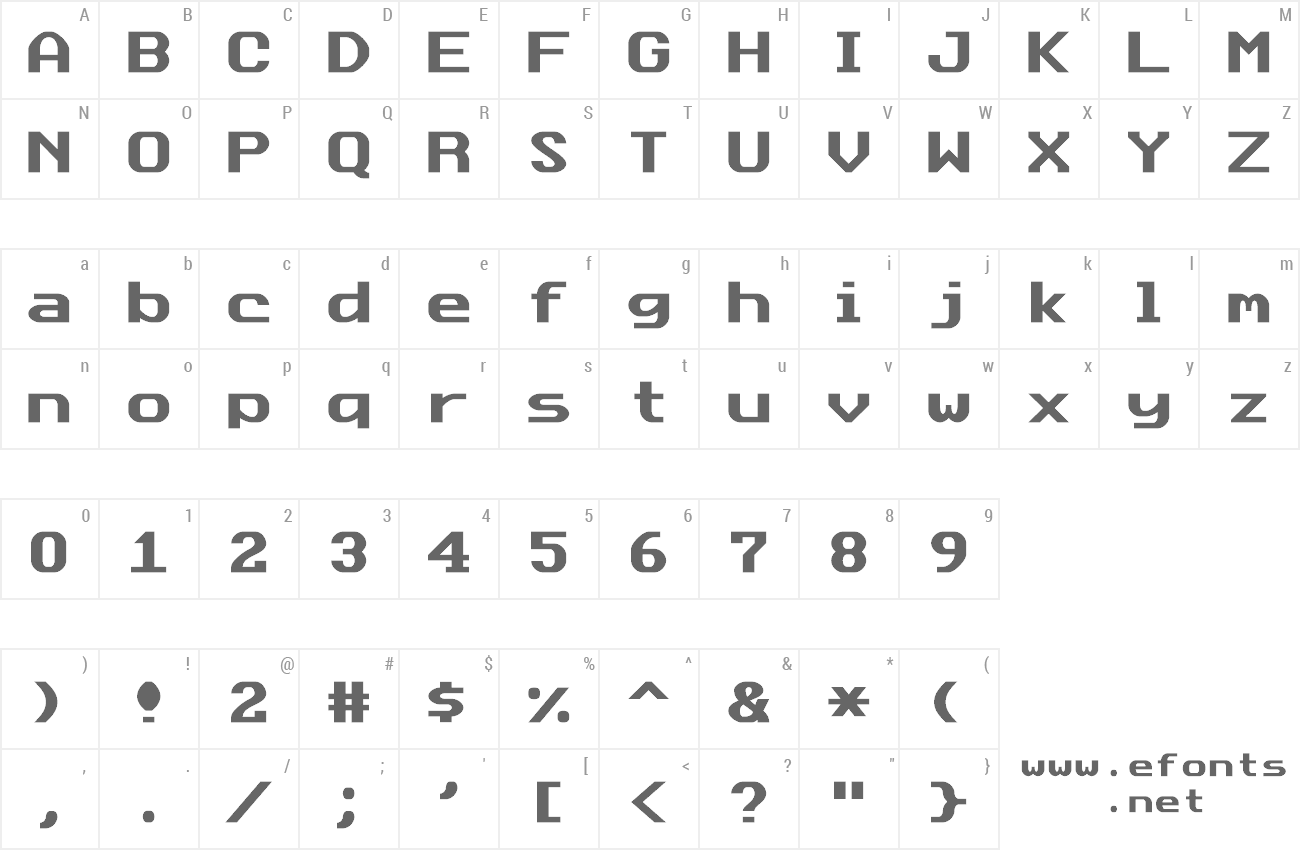
A remake of an old console style font seen in "graph" mode from Object Pascal related languages. Comes in two versions(and files). Fixed width, and Justified width. Extended character set may not be exactly perfect. OTF, and TTF Versions available. |